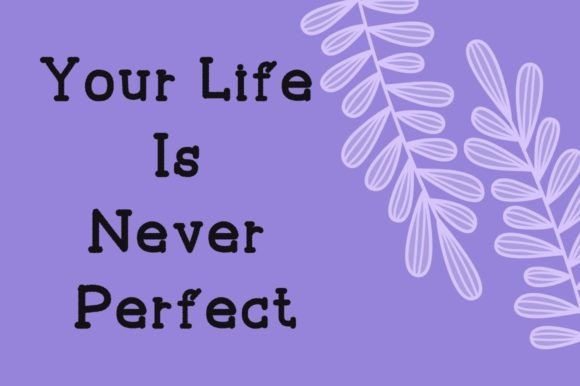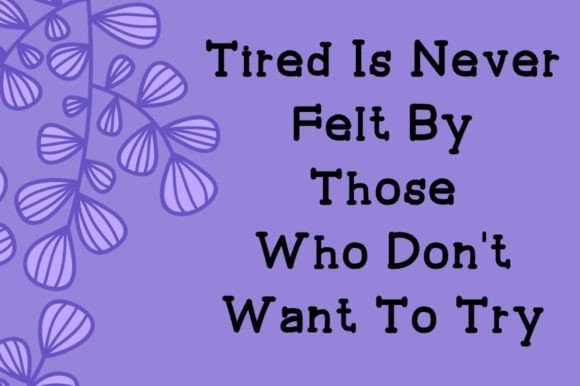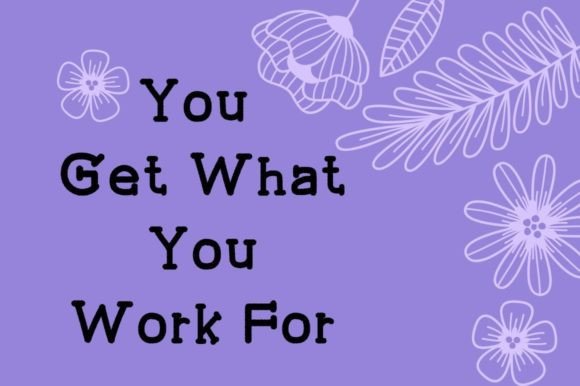
Introduction to Purple Floral Font
Purple Floral is a cute and casual serif font that will look outstanding in any context.
Whether you’re looking for fonts for Instagram or calligraphy scripts for DIY projects, this font will turn any creative idea into a true piece of art Purple Floral is great for logos, headings, t-shirts, letterhead, signage, labels, news, posters, badges, etc.